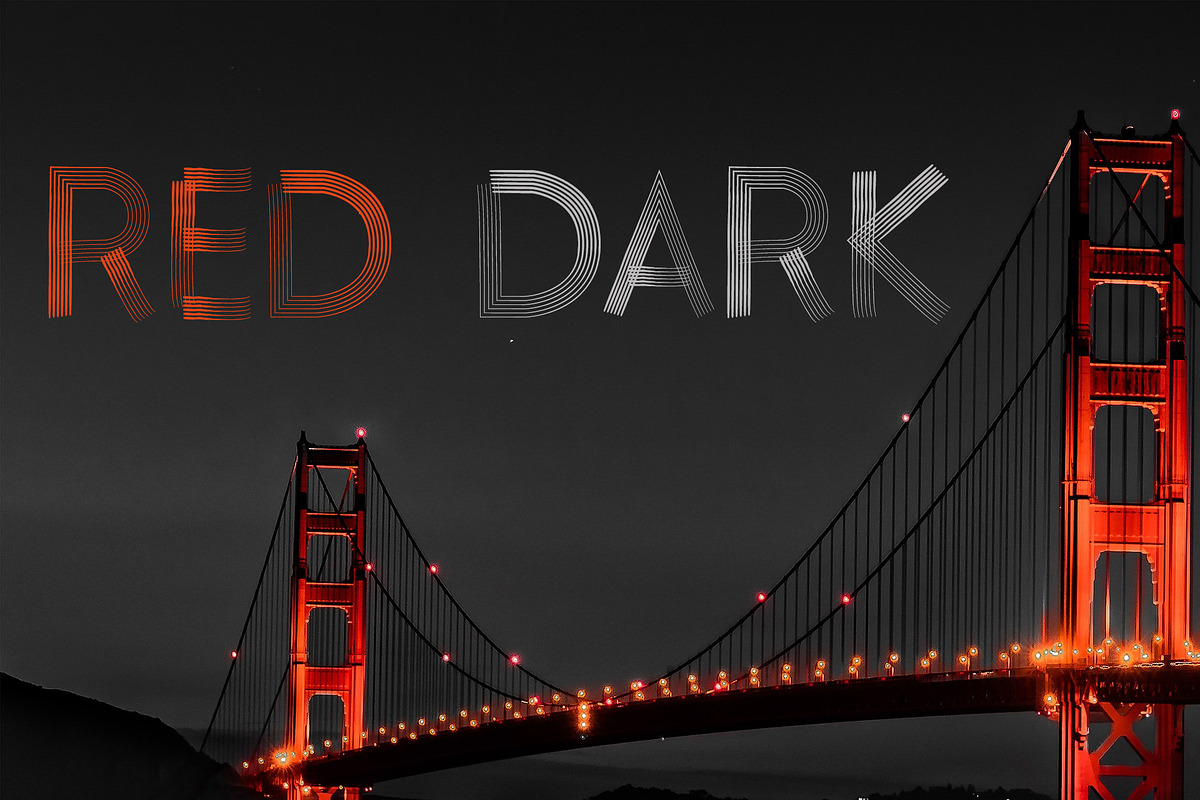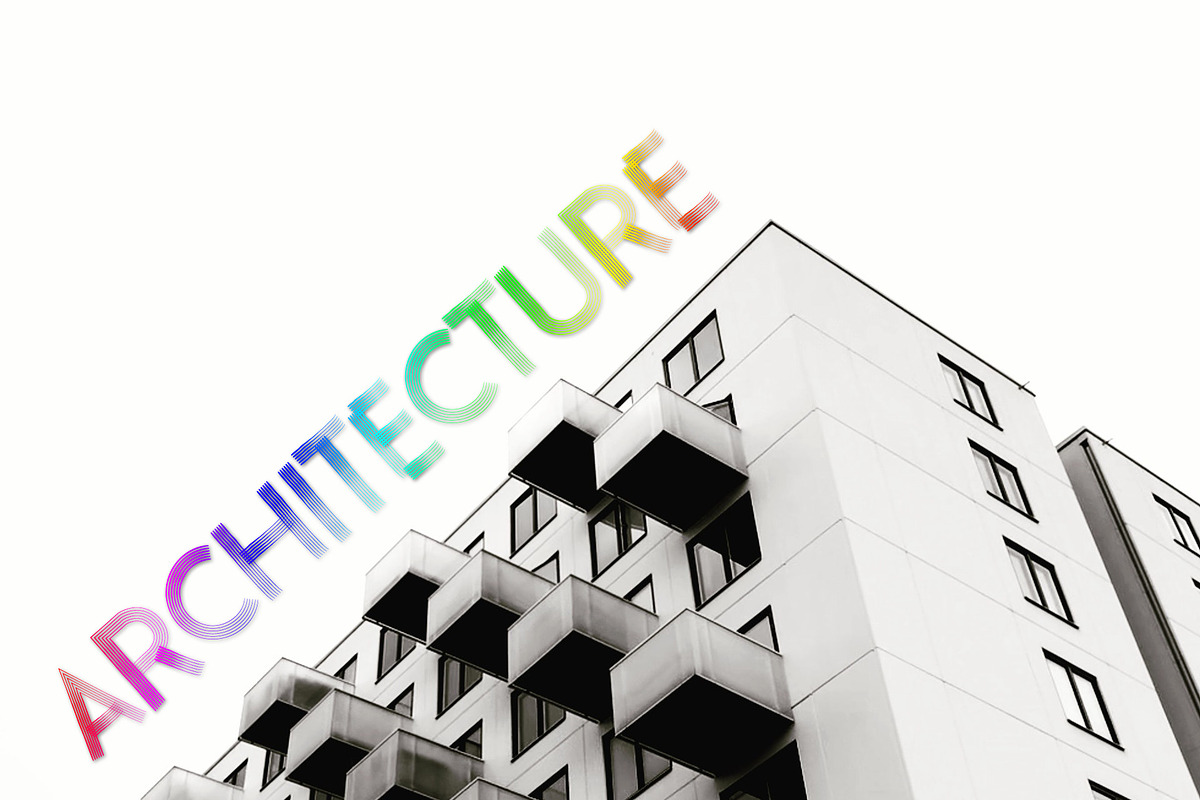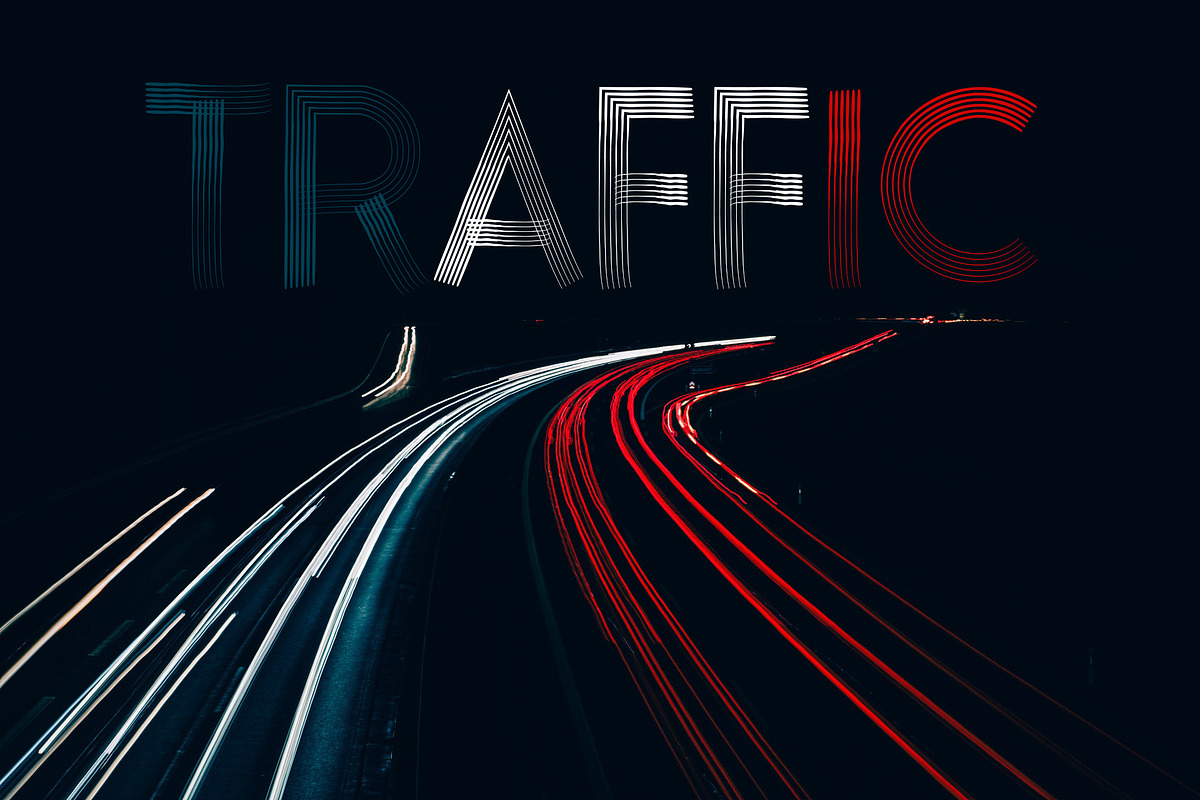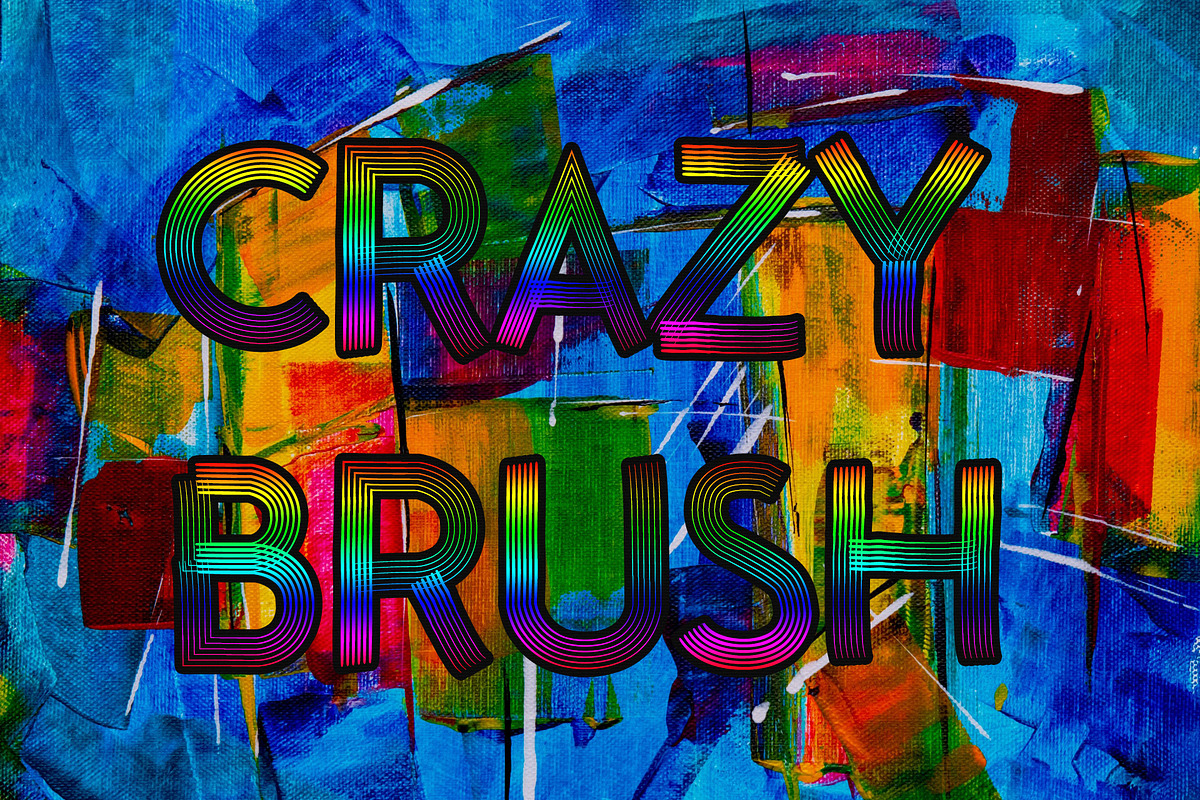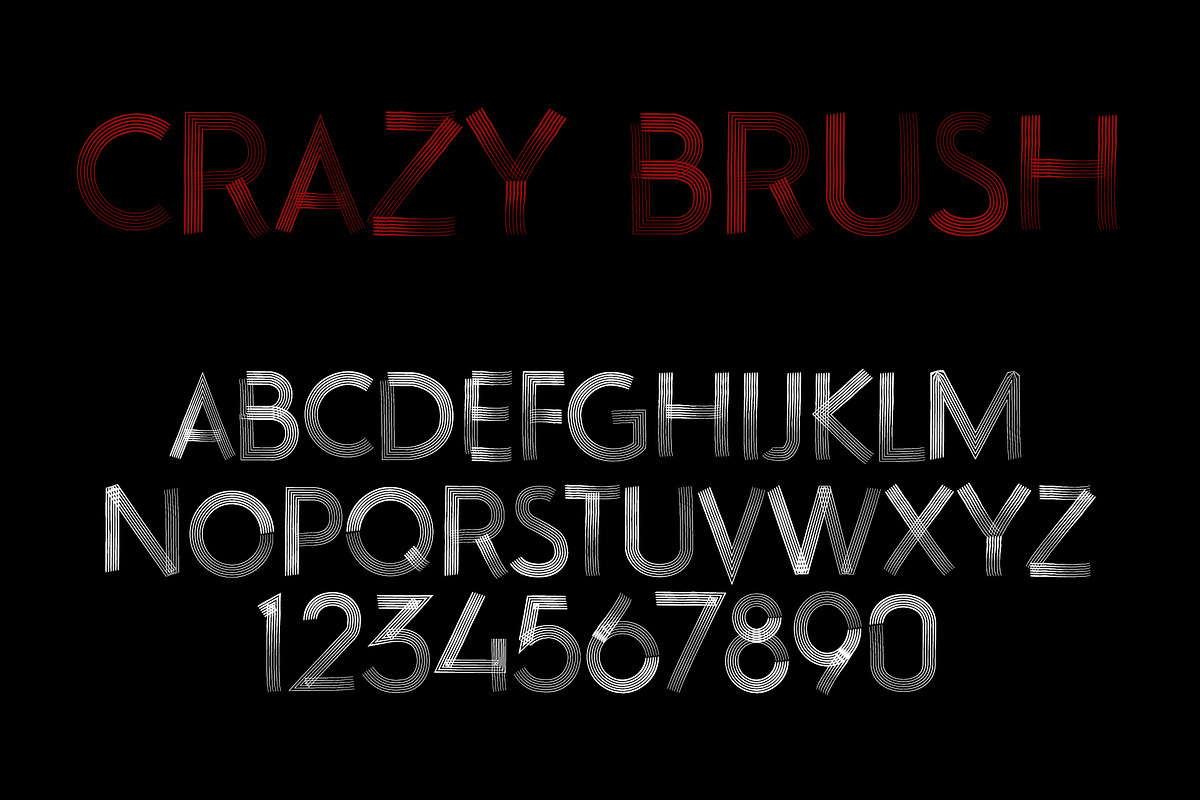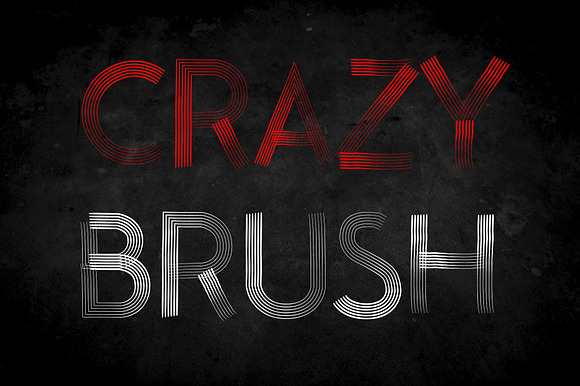
Crazy Brush Neue Font
Crazy Brush Neue Font is display All-Caps font.
Great for posters, logos, packaging, invitations, website titles, T-Shirts and more.
Crazy Brush Neue Font by vladocar fits naturally into Branding, posters, packaging, typography.